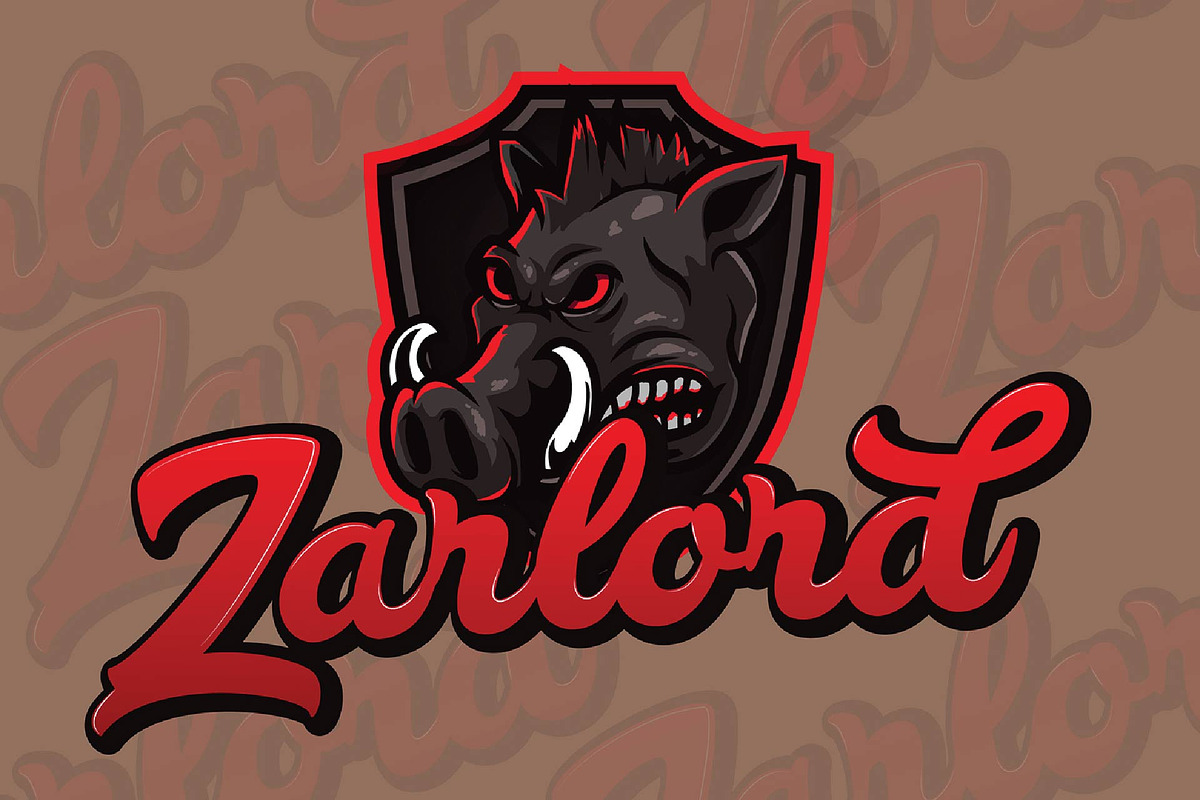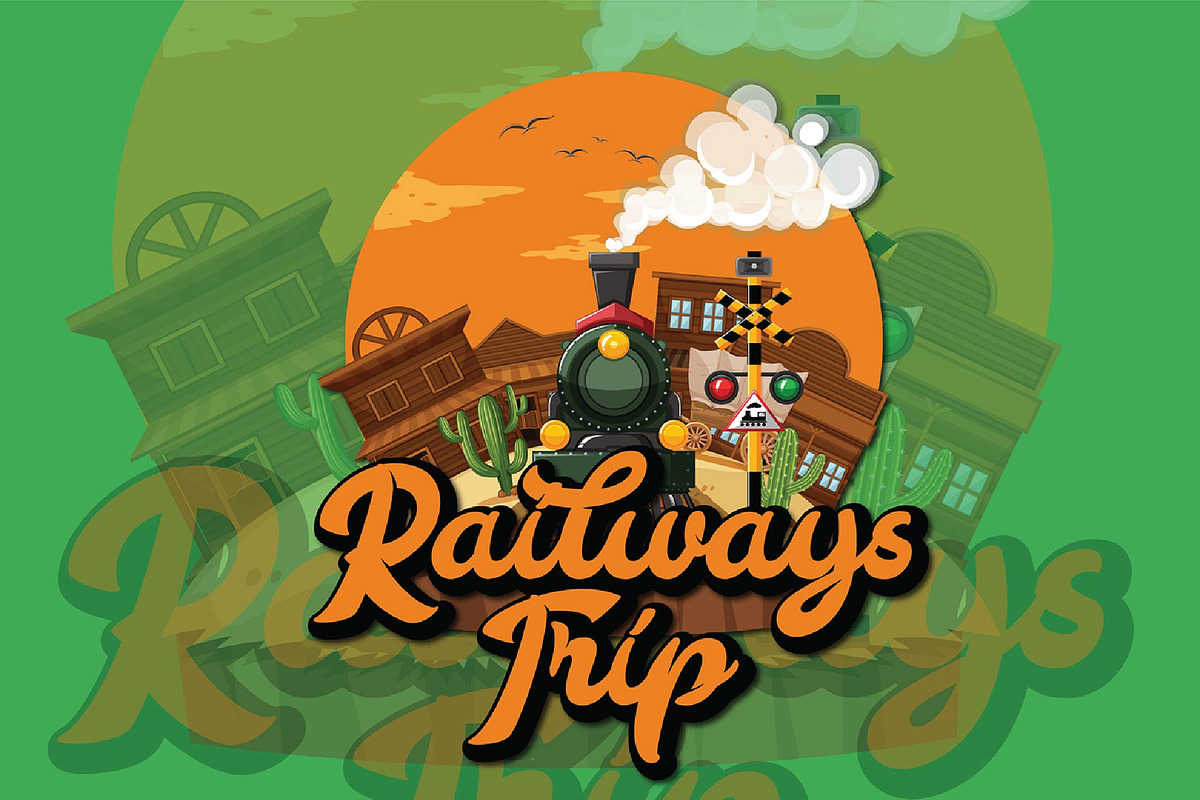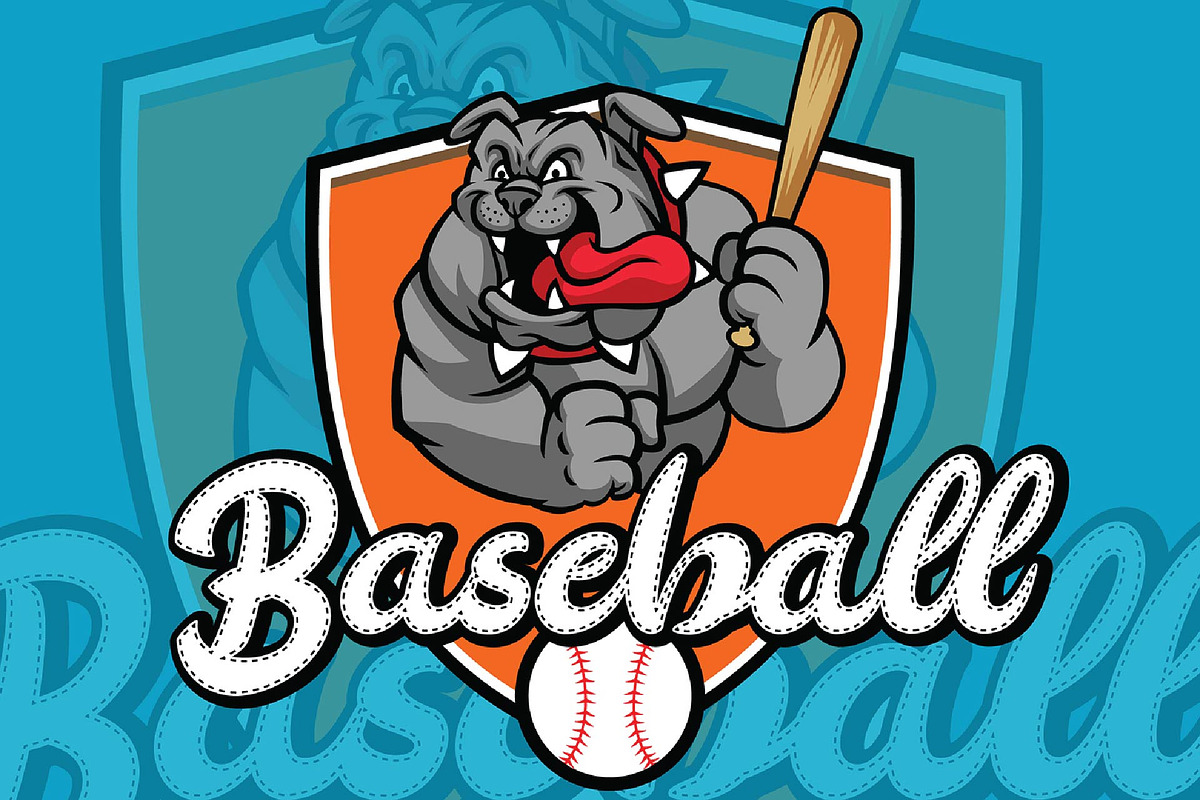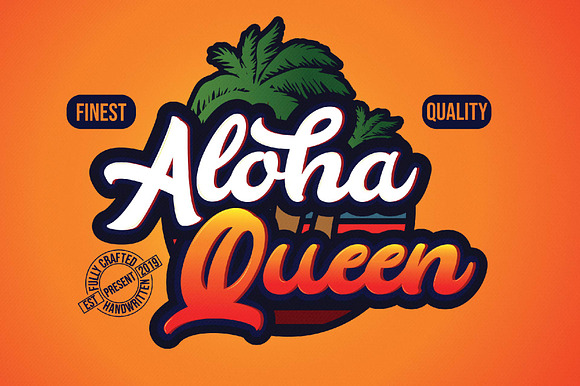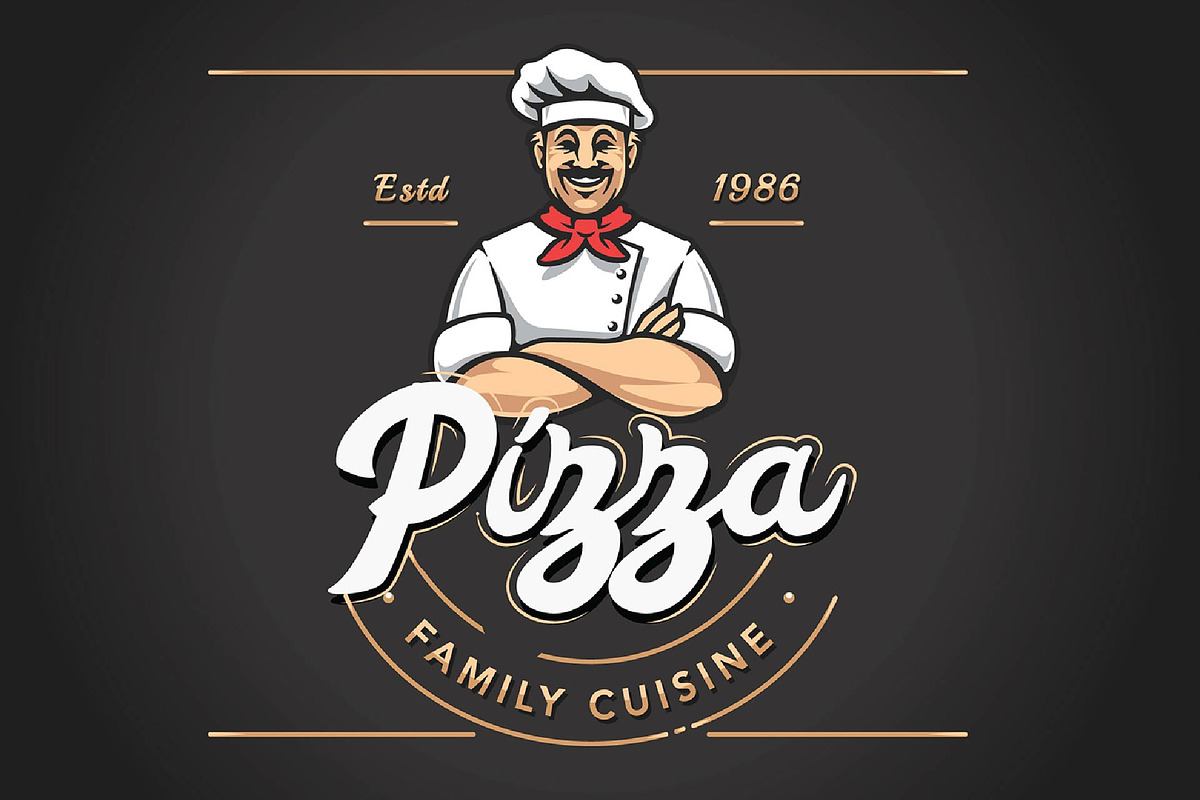
Aloha - Casual Bold Typeface
Aloha - Casual Bold Typeface with a calligraphy style, So beautiful on invitation like greeting cards, branding materials, business cards, quotes, posters, and more!
The alternative characters were divided into several features such as Stylistic Sets, Stylistic Alternates, Contextual Alternate, SWASH and Ligature.
- Alternates and Ligatures
Aloha - Casual Bold Typeface by KAZ by IanMikraz Studio fits naturally into Branding, posters, packaging, typography.